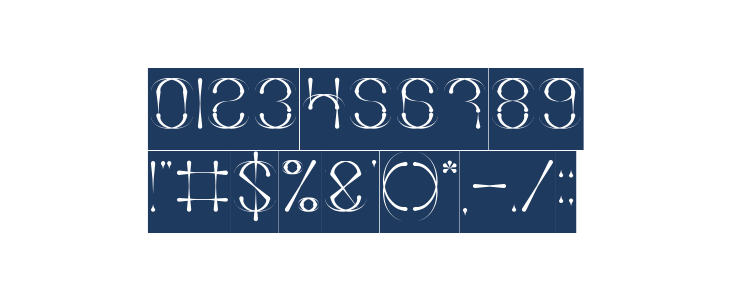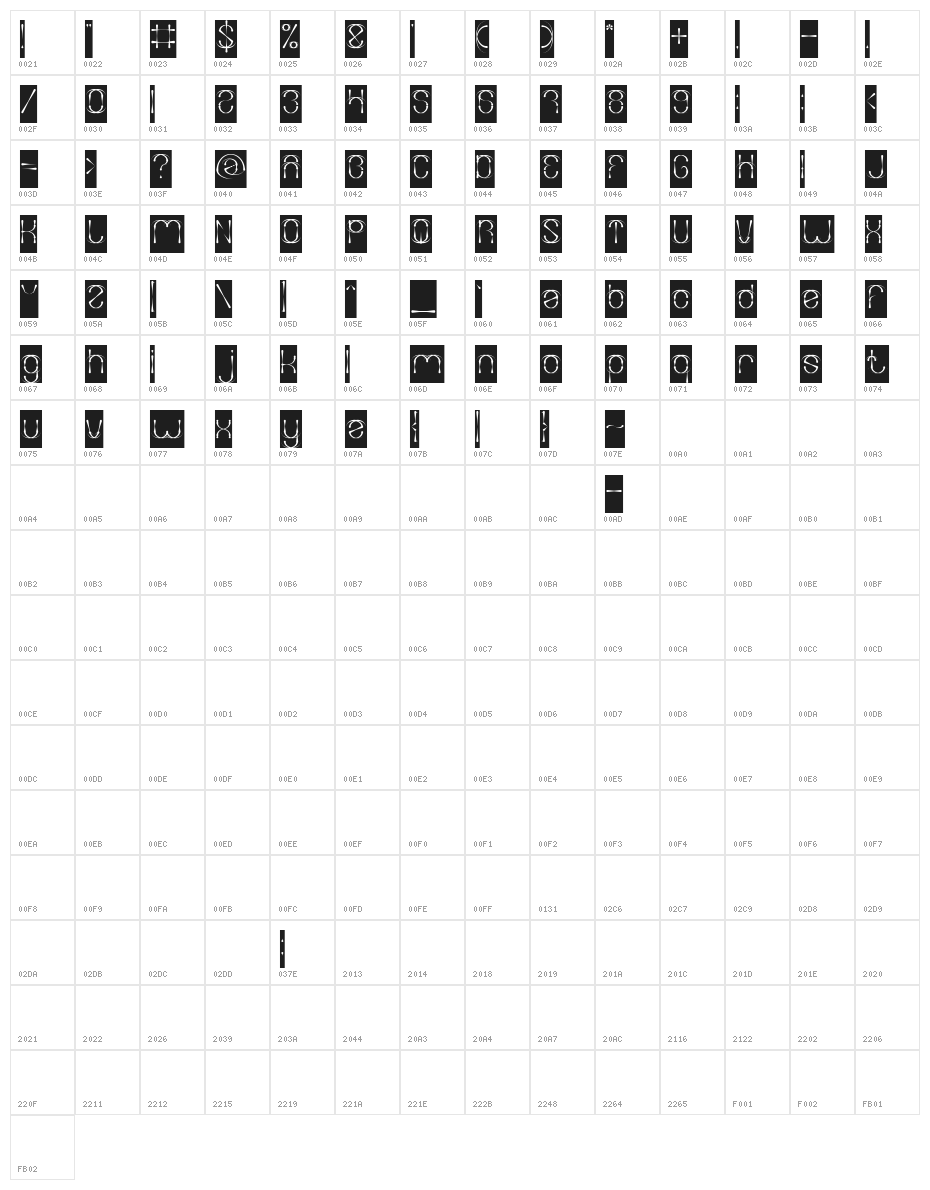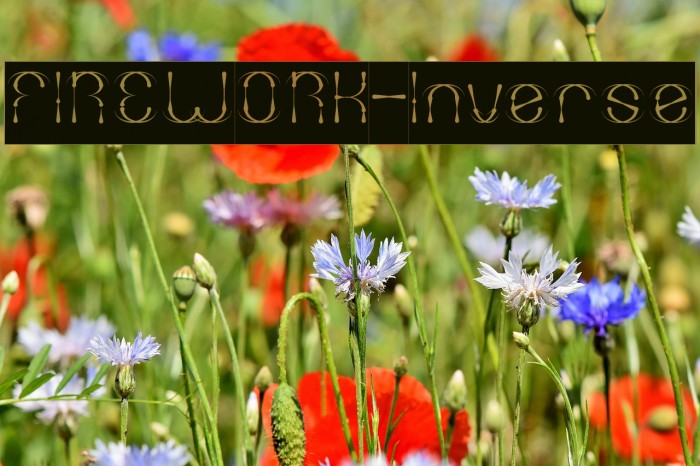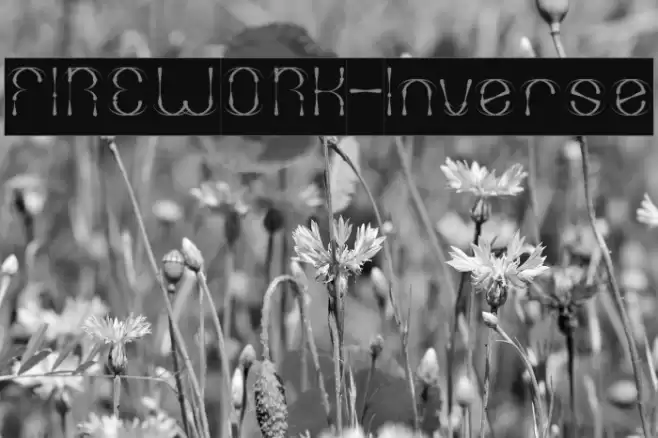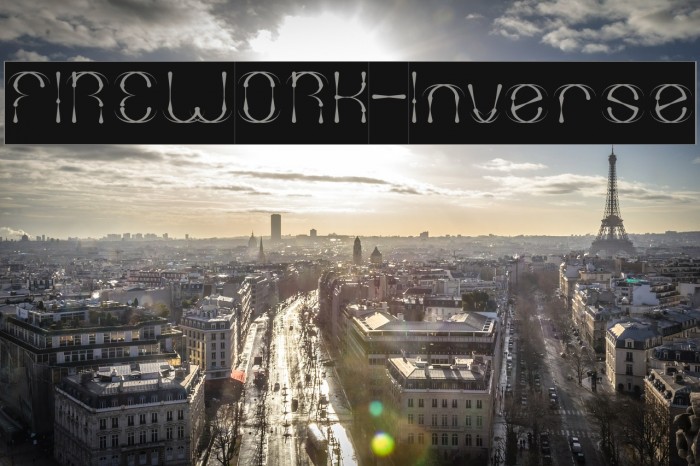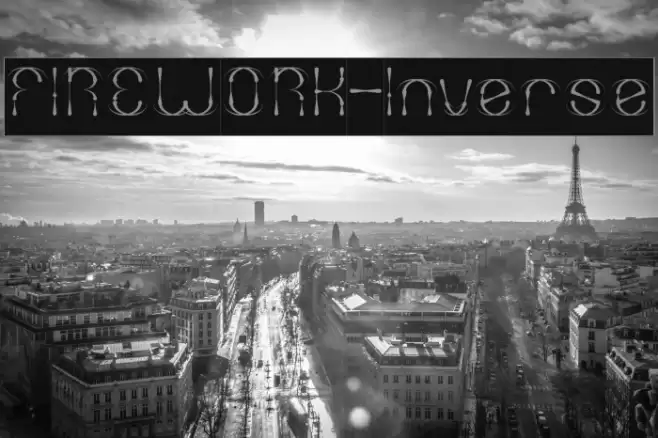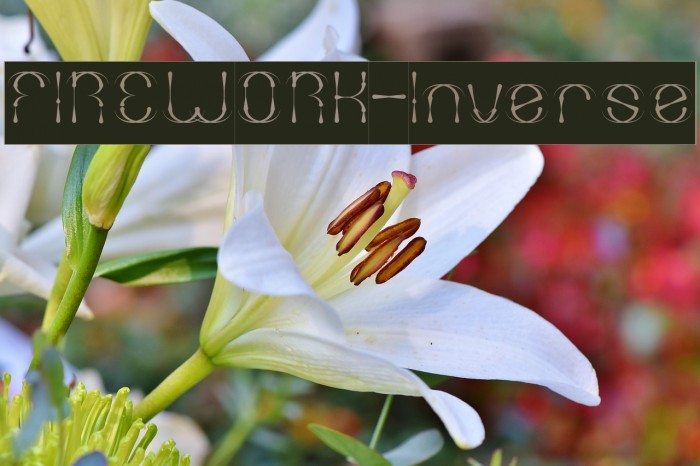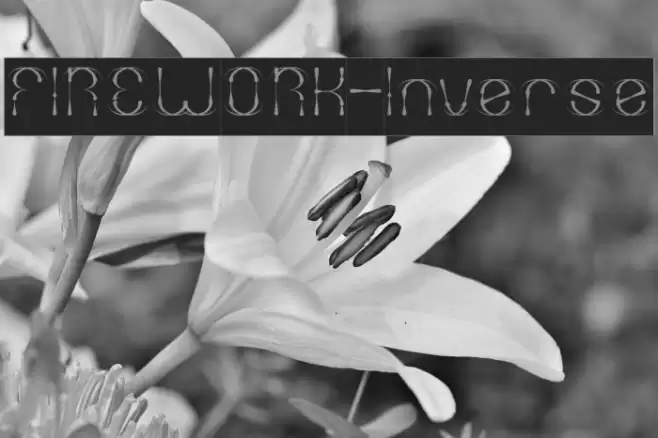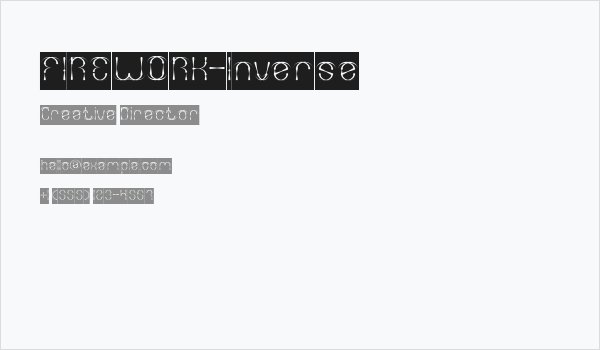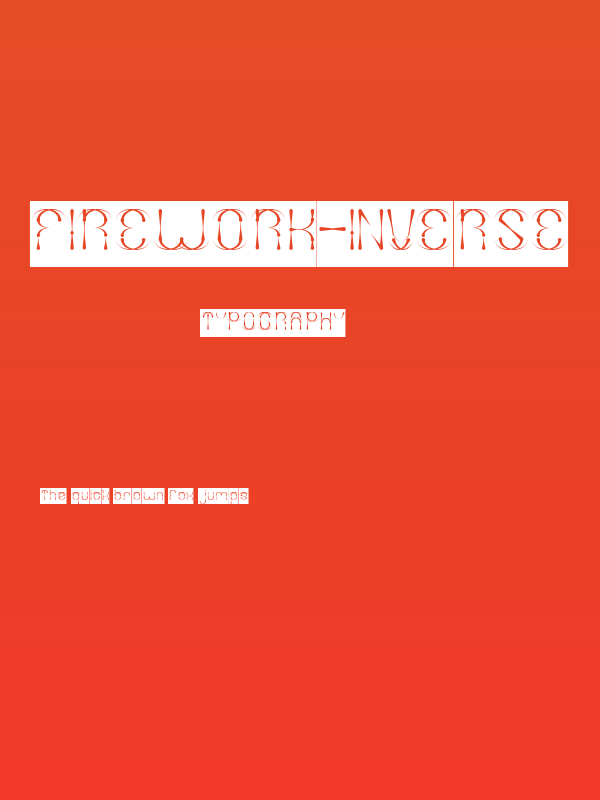
FIREWORK-Inverse Font
FIREWORK-Inverse Description
This font features a unique and decorative style, characterized by its intricate, swirling lines that resemble fireworks or floral patterns. Each letter is crafted with a sense of movement and elegance, making it stand out with its artistic flair. The strokes are thin and delicate, with a consistent flow that connects the elements within each character. The overall design is both playful and sophisticated, offering a whimsical yet refined aesthetic. This font is perfect for creative projects that require a touch of elegance and artistry.
| Proposed Projects | Ideal for invitations, greeting cards, artistic posters, and branding materials that require a decorative and elegant touch. |